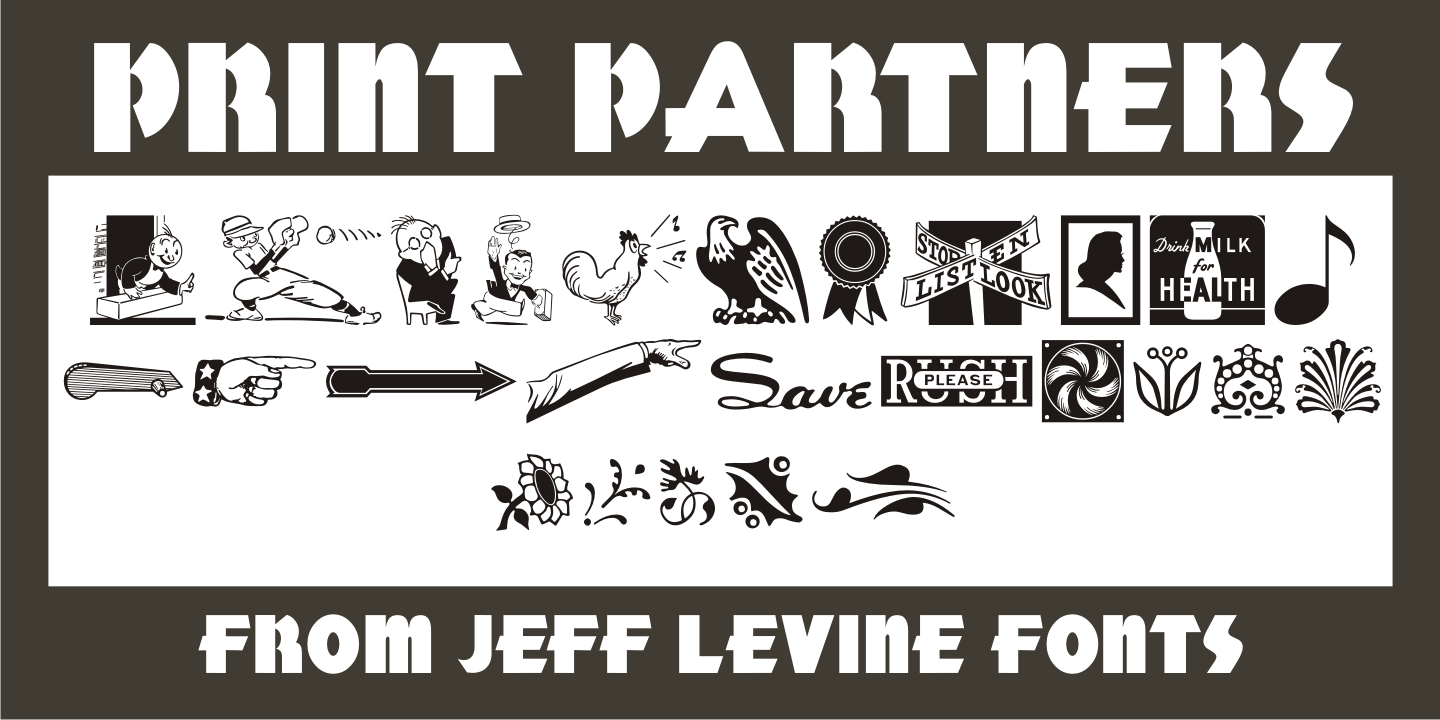
Print Partners
The vast variety of vintage letterpress illustrations representing many different eras and art styles allows for yet another volume of cartoons, embellishments, ornaments and stock cuts contained within Print Partners JNL.
Print Partners JNL Regular by Jeff Levine Fonts